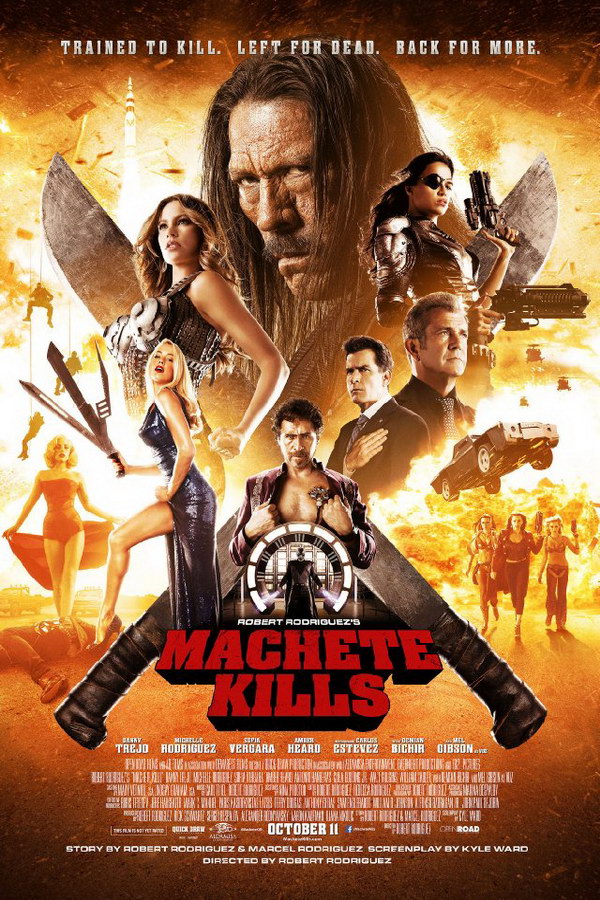
Machete Kills Font
CrimeMachete Kills is a 2013 American action-comedy film directed by Robert Rodriguez. It is a sequel to the 2010 film "Machete" and stars Danny Trejo, a former Mexican Federale who is recruited by the President of the United States to stop a revolutionary.
The movie title is probably set in Aachen Bold, a slab serif typeface family designed in 1969 by Alan Meeks and Colin Brignall. You can view and download the font here.